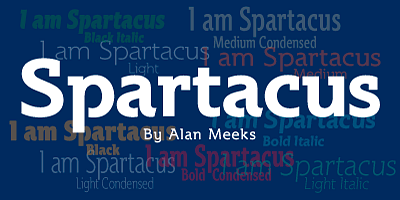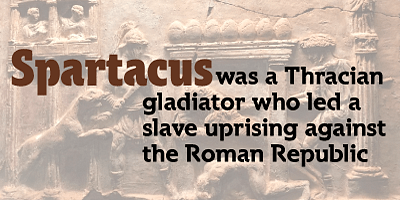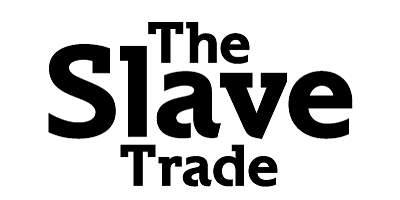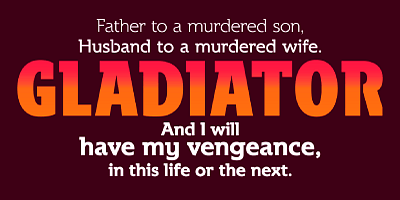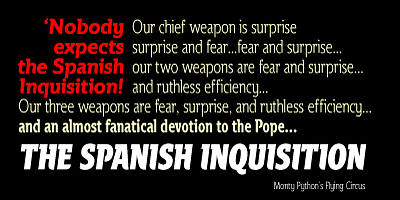
A further development of the Colosseum range but this with a slabserif. Visually monoline and modern in apppearance it still retains its Trajan characteristics. The addition of Spartacus black with its unusual Italic gives a the face a strong original headline font.
Alan Meeks